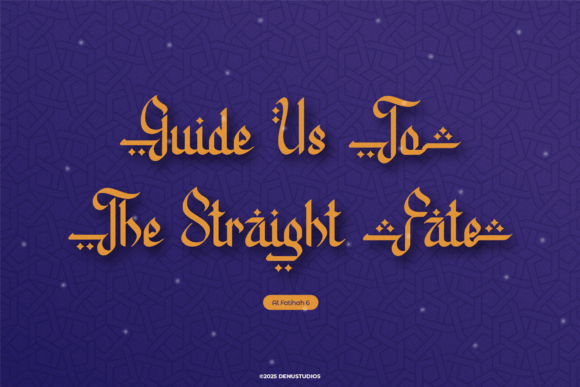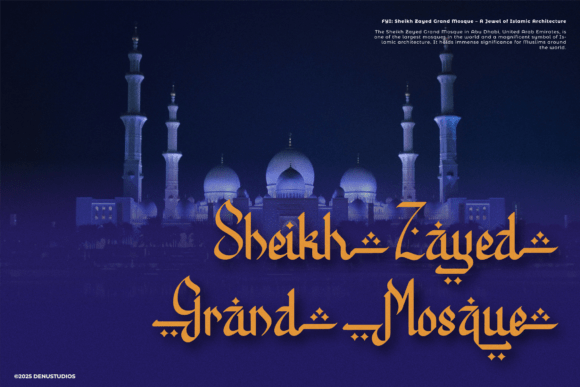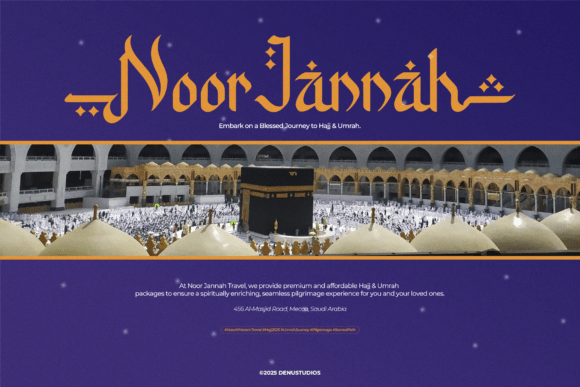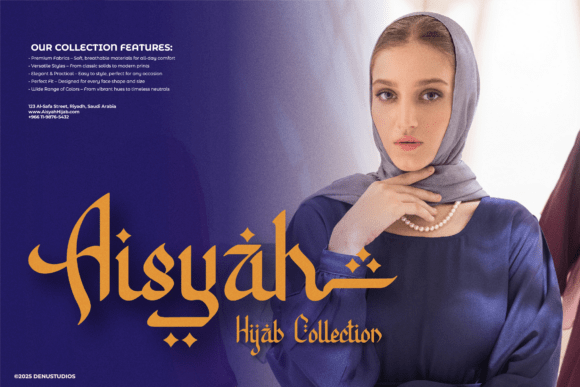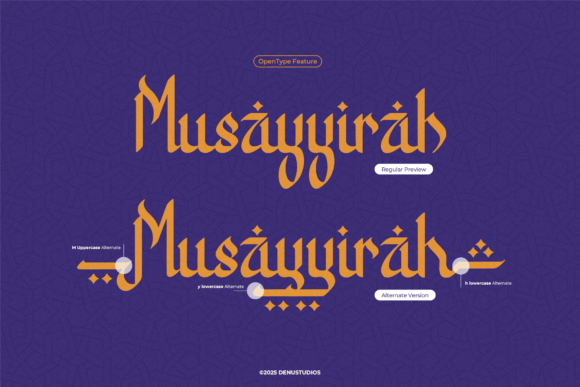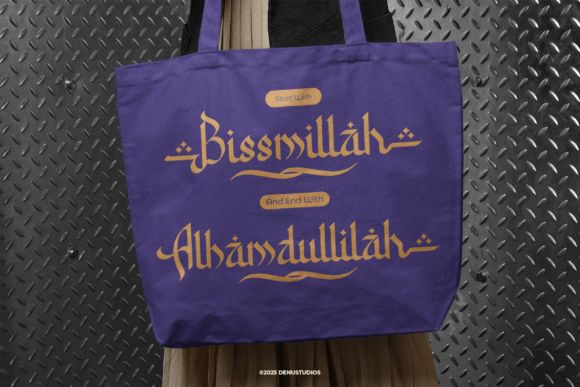
Discover the Elegance of Barqah Font: A Perfect Blend of Traditional and Modern Design
In the world of typography, few fonts manage to capture the essence of traditional art while still looking modern and fresh. Barqah Font is one such exceptional design that seamlessly blends the elegance of Arabic calligraphy with contemporary style. Inspired by the intricate details and flowing lines of Islamic art, Barqah Font is perfect for designers and crafters looking to add a touch of authenticity and sophistication to their projects.
The Inspiration Behind Barqah Font
Barqah Font draws its inspiration from the rich heritage of Arabic calligraphy, an art form that has been perfected over centuries. Arabic calligraphy is not just a form of writing but a decorative art that adorns the pages of Islamic manuscripts, mosques, and even modern-day designs. The creators of Barqah Font have skillfully taken these traditional elements and infused them with a modern twist, making it versatile for various design applications.
Key Features of Barqah Font
Barqah Font boasts several key features that make it stand out from other fonts:
- Intricate Details: The font is rich in intricate details that reflect the beauty of Arabic calligraphy. Each letter is crafted with precision, ensuring that the design is both elegant and readable.
- Flowing Lines: The flowing lines in Barqah Font give it a dynamic and graceful appearance. These lines are not just aesthetically pleasing but also contribute to the readability of the text.
- Modern Touch: While Barqah Font is deeply rooted in traditional Islamic art, it has been designed with a modern touch. This makes it suitable for a wide range of projects, from traditional Islamic designs to modern branding and advertising.
Use Cases for Barqah Font
Barqah Font is incredibly versatile and can be used in various design projects, including:
- Ramadan Greetings: Create beautiful and meaningful Ramadan greetings with Barqah Font. The font’s elegant design perfectly captures the spirit of the holy month.
- Islamic Posters: Whether you’re designing posters for religious events, lectures, or community activities, Barqah Font adds a touch of authenticity and respect to your designs.
- Branding: For businesses looking to connect with a Muslim audience, Barqah Font offers a unique opportunity to create culturally relevant and sensitive branding.
- Cultural Designs: Beyond religious contexts, Barqah Font can be used in cultural designs that celebrate Arabic heritage and art.
Why Choose Barqah Font?
For designers and crafters, choosing the right font can make all the difference in the success of a project. Here are a few reasons why Barqah Font should be at the top of your list:
- Authenticity: Barqah Font offers an authentic representation of Arabic calligraphy, making it perfect for projects that require a genuine touch.
- Sophistication: The font’s elegant design adds a level of sophistication to any project, making it suitable for high-end designs.
- Versatility: From spiritual and decorative themes to modern branding, Barqah Font is versatile enough to be used in a wide range of projects.
Barqah Font is a beautiful and versatile typeface that brings the elegance of Arabic calligraphy to the world of modern design. With its intricate details, flowing lines, and perfect blend of traditional and modern elements, Barqah Font is an excellent choice for designers and crafters looking to create authentic and sophisticated designs. Whether you’re working on Ramadan greetings, Islamic posters, branding, or cultural designs, Barqah Font is sure to elevate your projects to new heights.
Embrace the beauty of Arabic calligraphy and add a touch of elegance to your designs with Barqah Font. Explore its potential and discover how it can transform your projects into stunning works of art.